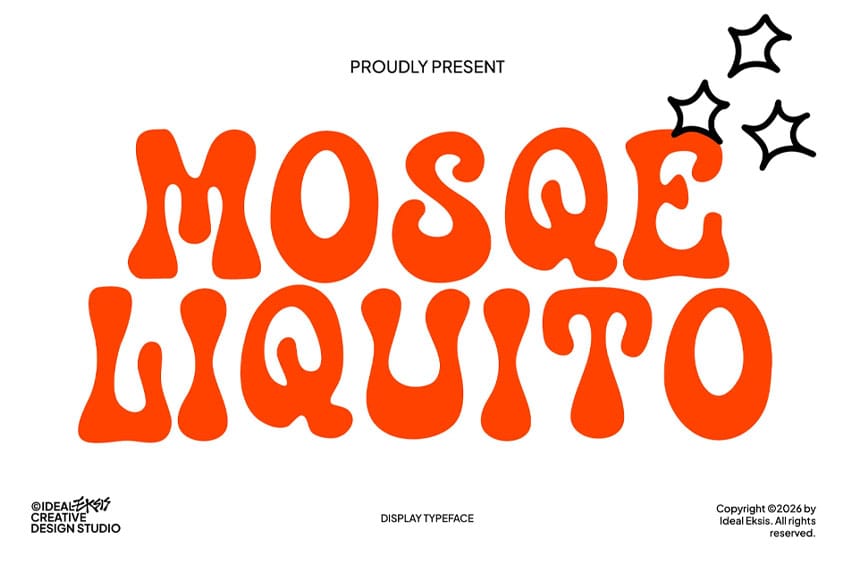
Mosqe Liquito Font display typeface features highly organic, liquid-like letterforms with an elastic, melting aesthetic. The strokes are extremely bold and heavy, showing a fluid distortion that mimics dripping or flowing liquid.
Characterized by bulbous terminals, wavy contours, and a distinct psychedelic energy, the font lacks rigid structures, opting instead for playful, hand-drawn curves. It is exceptionally suited for eye-catching poster designs, retro branding, music album covers, and creative packaging where a bold, trippy, and expressive visual statement is required.